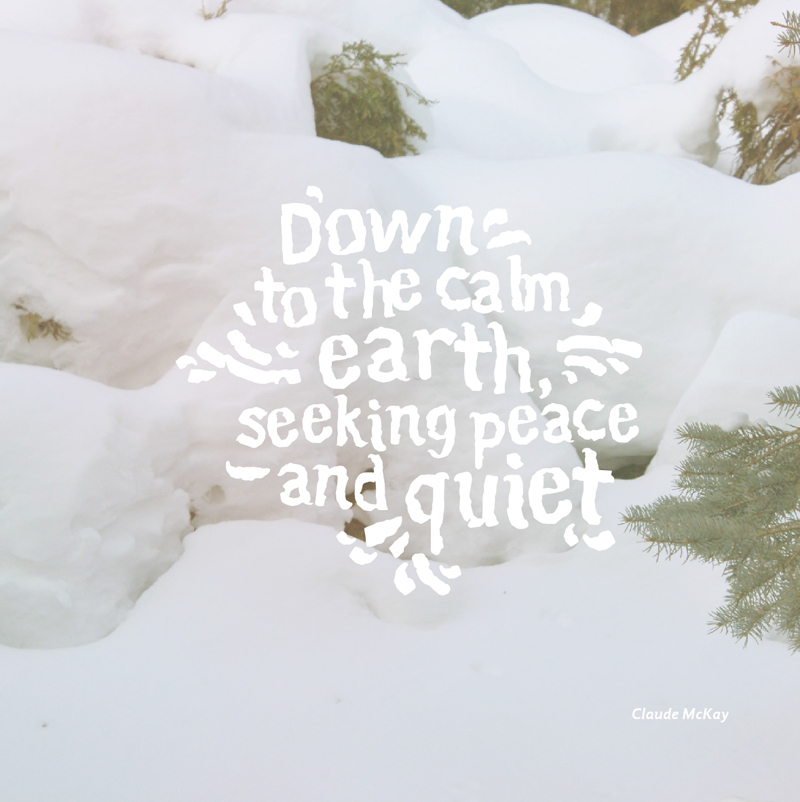
Neige-Regular
Neige, an handmade typeface, was inspired by observing snow falling from the sky in an abstract manner on the surrounding grounds.
By the forms that it creates in contact with flora, it seems to bury everything she finds in a gentle way.
The typographical family is composed of the Latin alphabets 26 letters, upper and lower cases, as well as Arabic numerals from 0 to 9. The presence of some Latin diacritics allow us to write in French.